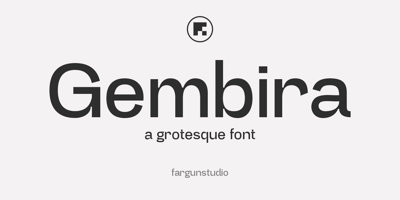
Gembira Font Family was designed by Fajar Gunawan and published by Fargun Studio. Gembira contains 2 styles and family package options. Gembira seamlessly blends the timeless appeal of mid-century modern design with the striking character of bold inktraps. Drawing inspiration from the precise geometry and clean forms movement, along with the iconic lowercase shapes of Futura, this typeface represents a perfect balance of vintage charm and modern innovation.Enhancing its adaptability, Gembira includes alternate glyphs available through OpenType stylistic sets, offering designers greater flexibility to craft expressive and dynamic visuals for any creative endeavor.